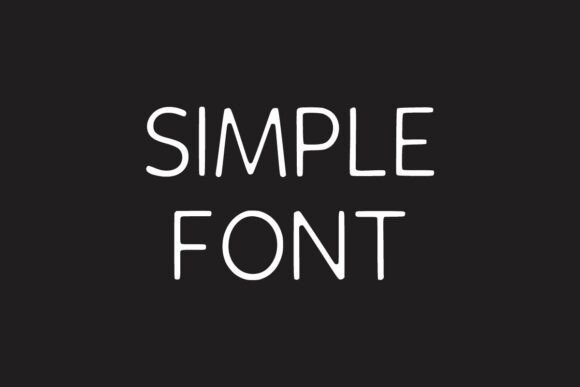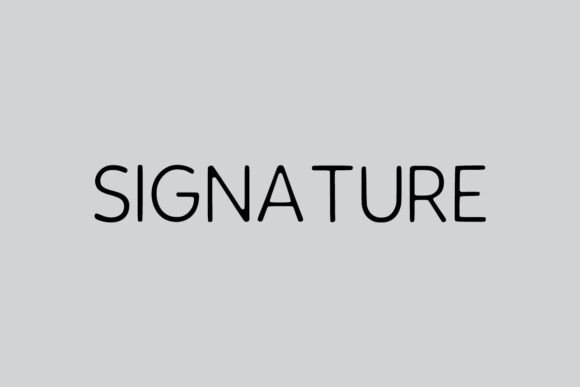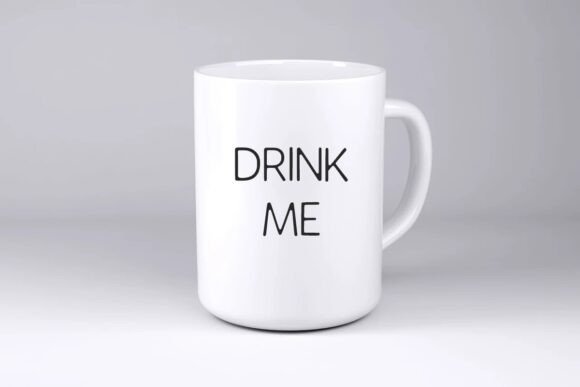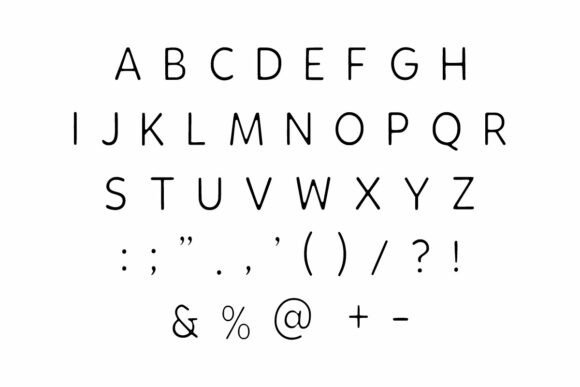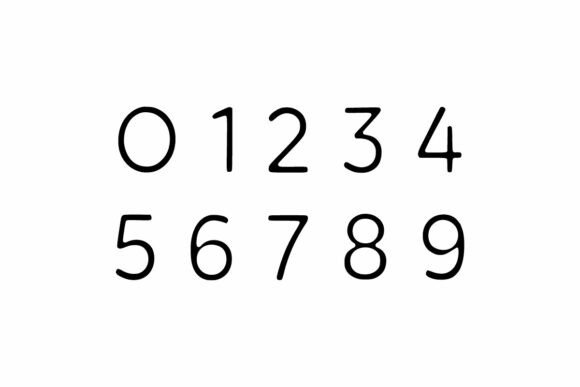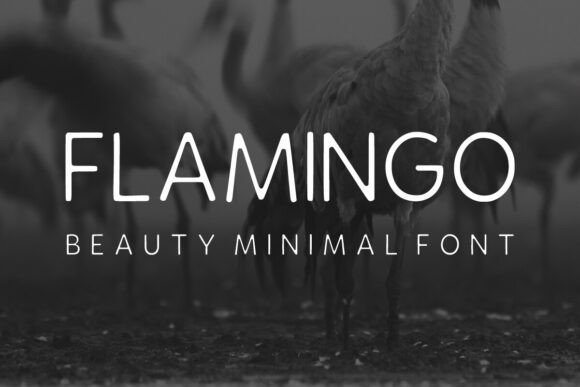
Introducing Flamingo Font: The Perfect Choice for Modern Designs with a Relaxed Touch
In the world of typography, fonts play a crucial role in conveying the tone and personality of a design. For designers and crafters looking for a modern, simple, and elegant display font that exudes an informal style and casual vibe, Flamingo Font is an excellent choice. This versatile font is perfect for creating a wide range of designs, from product packaging and invitations to quotes, t-shirts, labels, posters, and logos.
What Makes Flamingo Font Stand Out?
Flamingo Font is a modern display font that boasts a unique blend of simplicity and elegance. Its clean lines, subtle curves, and relaxed style make it an ideal choice for designers who want to add a touch of sophistication to their creations without appearing too formal. The font’s casual vibe is perfect for designs that require a laid-back and approachable feel, making it suitable for a variety of applications.
Key Features of Flamingo Font
- Modern and Simple Design: Flamingo Font features a sleek and contemporary design that is both visually appealing and easy to read.
- Elegant Display Font: The font’s elegant style makes it perfect for use in display settings, such as headings, titles, and captions.
- Informal Style and Casual Vibe: Flamingo Font’s relaxed style and casual vibe make it ideal for designs that require a friendly and approachable tone.
- Versatile and Multi-Purpose: The font is suitable for a wide range of applications, including product packaging, invitations, quotes, t-shirts, labels, posters, and logos.
Use Cases for Flamingo Font
Flamingo Font is a versatile font that can be used in various design projects. Here are some use cases where the font excels:
- Product Packaging: Add a touch of elegance and sophistication to your product packaging with Flamingo Font.
- Invitations: Create beautiful and stylish invitations for special occasions, such as weddings, birthdays, and parties.
- Quotes and Typography: Use Flamingo Font to create stunning typography quotes that are perfect for social media, blogs, and websites.
- T-Shirts and Apparel: Design stylish and trendy t-shirts, hoodies, and other apparel with Flamingo Font.
- Labels and Stickers: Create eye-catching labels and stickers for products, gifts, and promotional materials.
- Posters and Flyers: Design bold and attention-grabbing posters and flyers for events, promotions, and advertising campaigns.
- Logos and Branding: Use Flamingo Font to create modern and elegant logos and branding materials for businesses and organizations.
Tips for Using Flamingo Font Effectively
To get the most out of Flamingo Font, here are some tips to keep in mind:
- Pair with Other Fonts: Experiment with pairing Flamingo Font with other fonts to create a unique and visually appealing typography combination.
- Adjust Font Size and Color: Adjust the font size and color to suit the design and tone of your project.
- Use for Headings and Titles: Use Flamingo Font for headings and titles to add a touch of elegance and sophistication to your design.
- Keep it Simple: Don’t overcomplicate your design – keep it simple and clean to let Flamingo Font shine.
Flamingo Font is a modern, simple, and elegant display font that is perfect for designers and crafters looking for a relaxed and casual vibe. With its versatile design and wide range of applications, Flamingo Font is an excellent choice for various design projects. By following the tips outlined above, you can effectively use Flamingo Font to create stunning designs that leave a lasting impression.